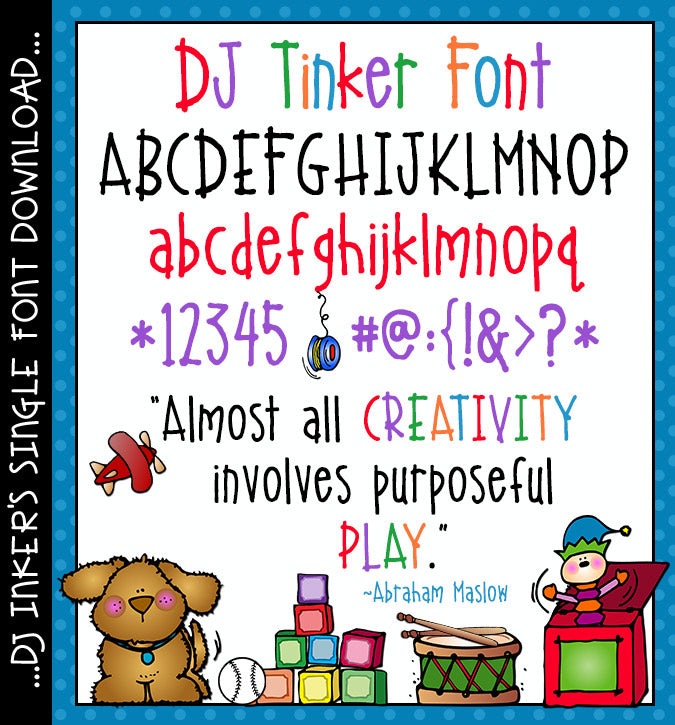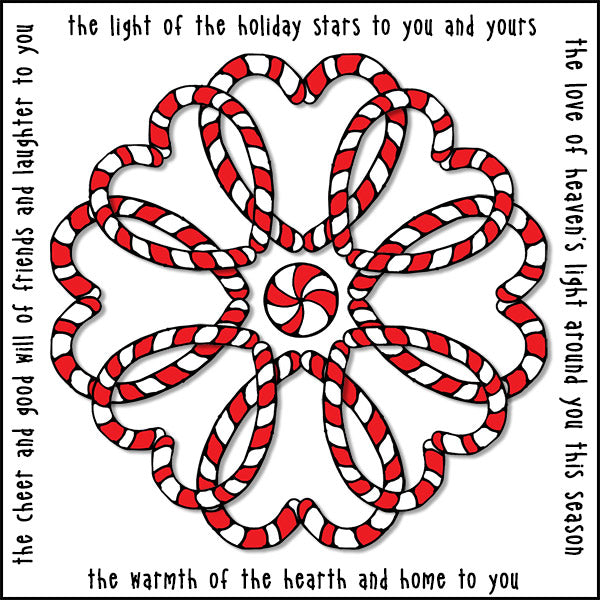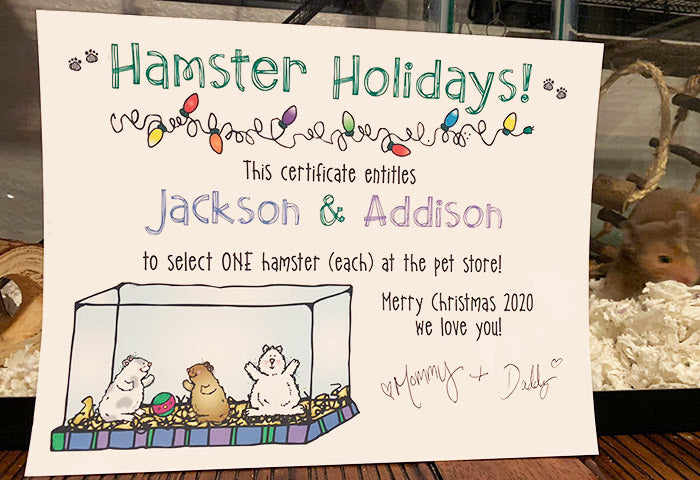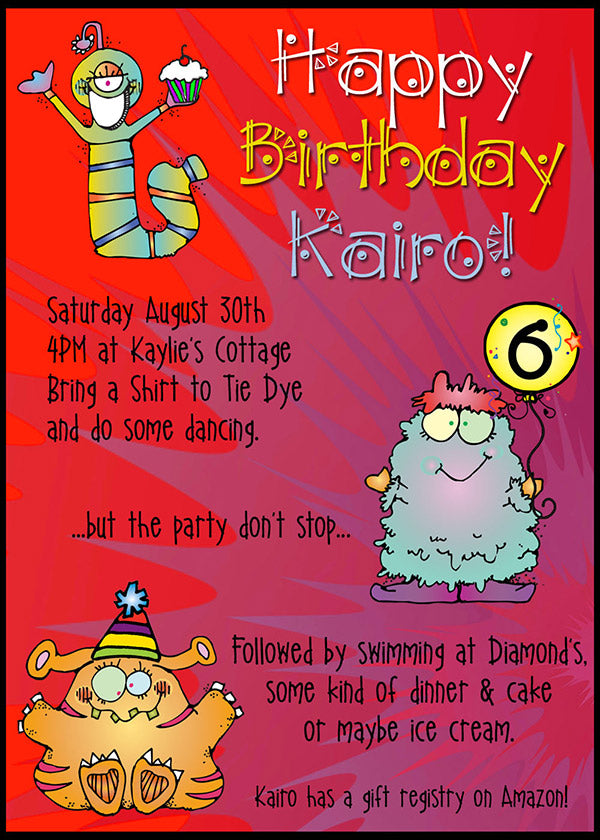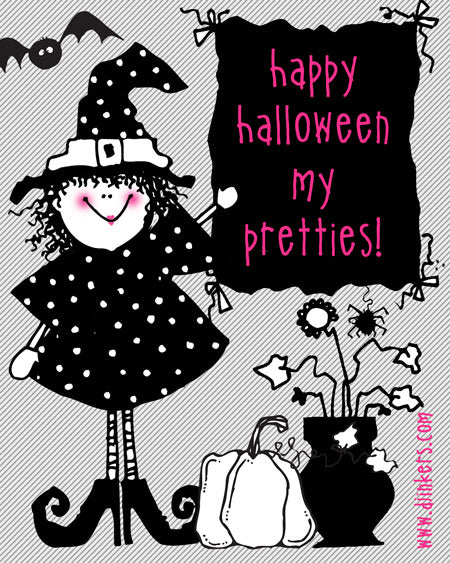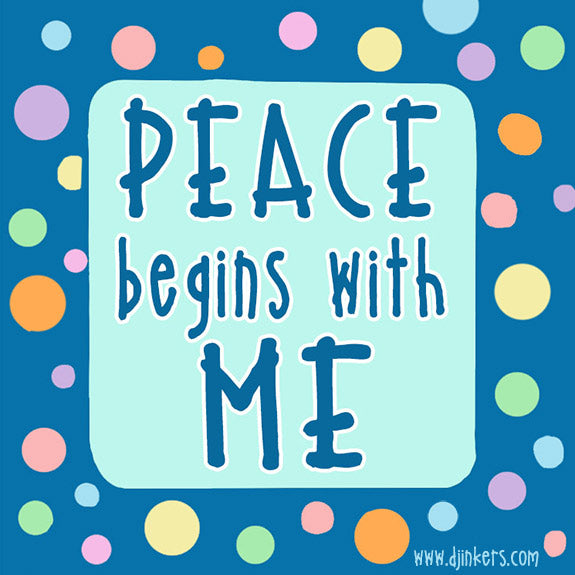
DJ Inkers' Tinker font offers simple and playful text for your creations
DJ Tinker Font Download
DJ Inkers' Tinker font offers simple and playful text for your creations
DJ Tinker Font Download
Why choose between character and clarity? With our DJ Tinker font, you get delightfully whimsical lettering while still being easy to read - no tinkering required. Bring a cheerful, handcrafted touch to your schoolwork, home organization, office inspirations and creative crafting projects today!